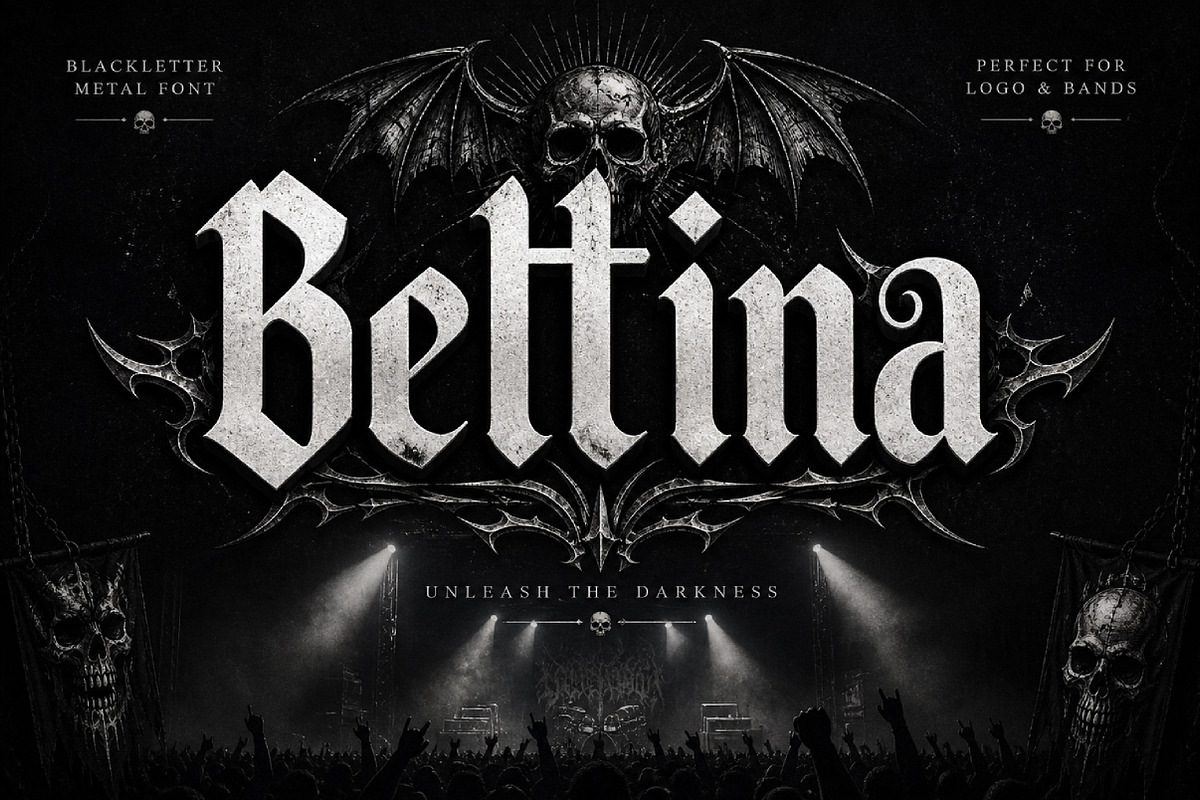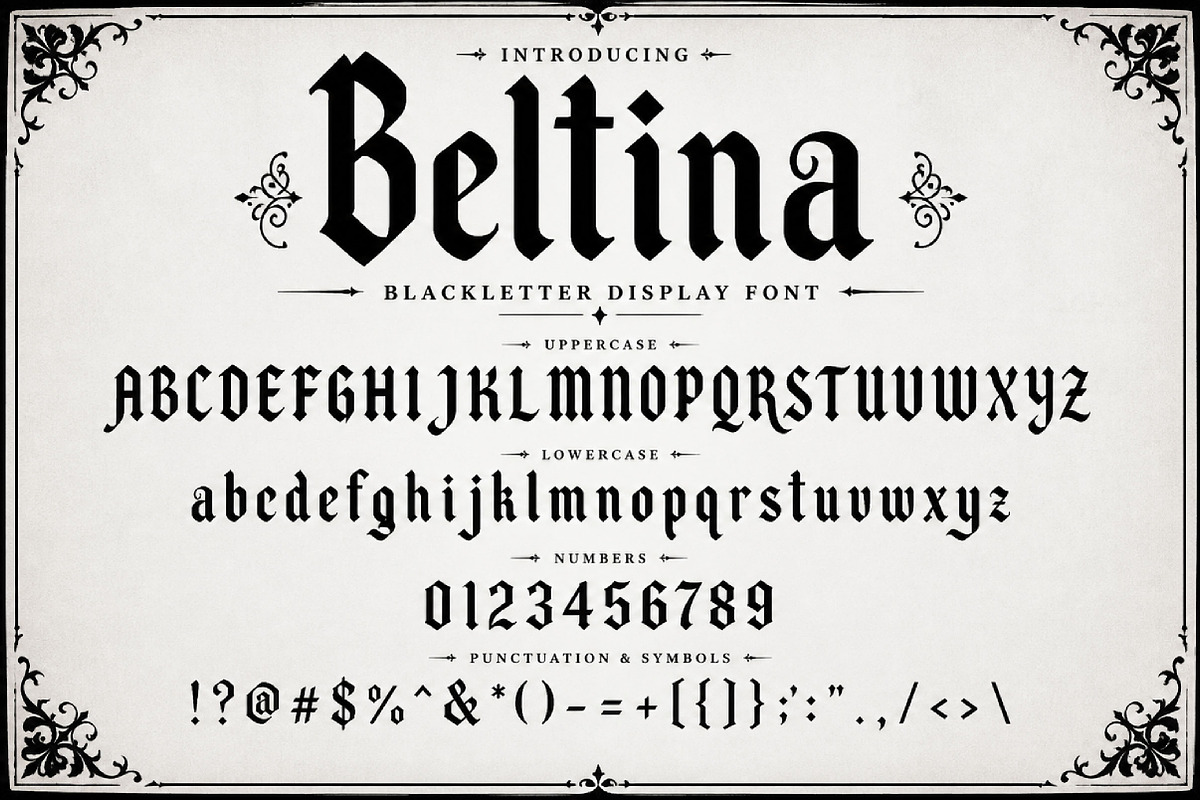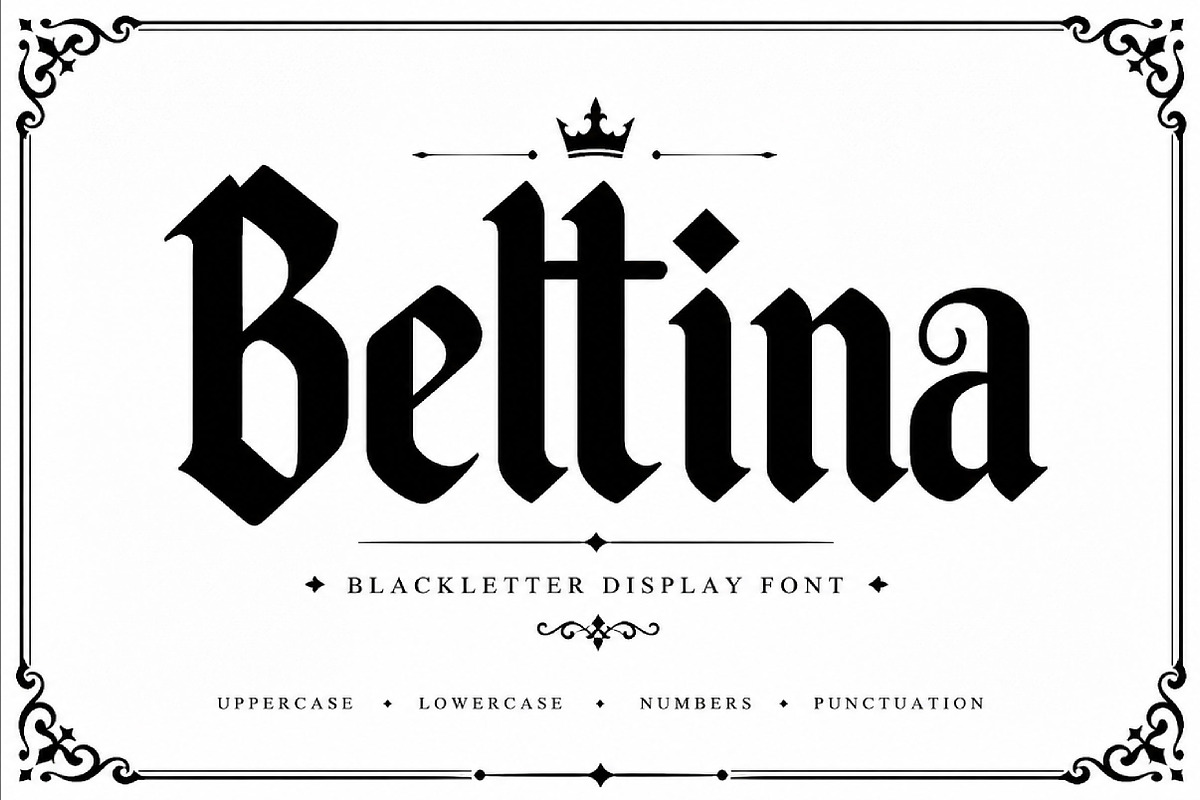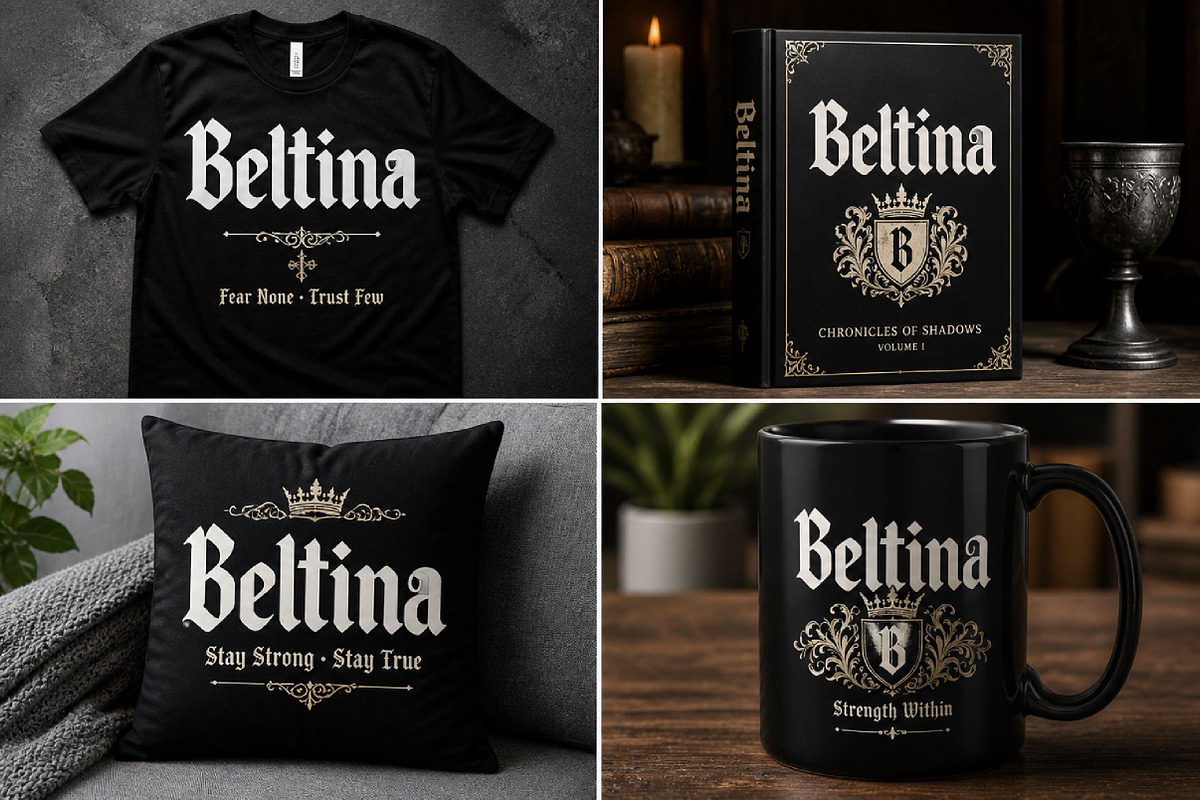
Beltina
Beltina – Gothic Blackletter Display Font
Short Description
Beltina is a bold, classic, and elegant blackletter font, perfect for vintage designs, logos, posters, branding, and gothic-inspired creative projects.
Beltina is a powerful blackletter display font inspired by classic gothic typography. With its sharp edges, strong vertical strokes, and traditional letterforms, this font creates a bold and timeless look that feels both historical and stylish.
Its refined gothic character makes Beltina perfect for projects that need a vintage, medieval, or elegant identity. Whether you are designing logos, posters, editorial headlines, packaging, branding materials, tattoos, or album covers, this font helps your typography stand out with authority and sophistication.
The balanced structure ensures readability while maintaining a strong decorative presence. Suitable for both print and digital use, Beltina is an excellent choice for designers who want a font that feels classic, bold, and highly distinctive.
Gothic and medieval designs
Vintage branding
Logos and headlines
Posters and flyers
Album covers
Tattoo-style graphics
Packaging design
Editorial titles
Event and festival visuals
Statement typography
Uppercase letters
Lowercase letters
Classic blackletter style
Sharp and bold letterforms
Elegant gothic character
Perfect for display use